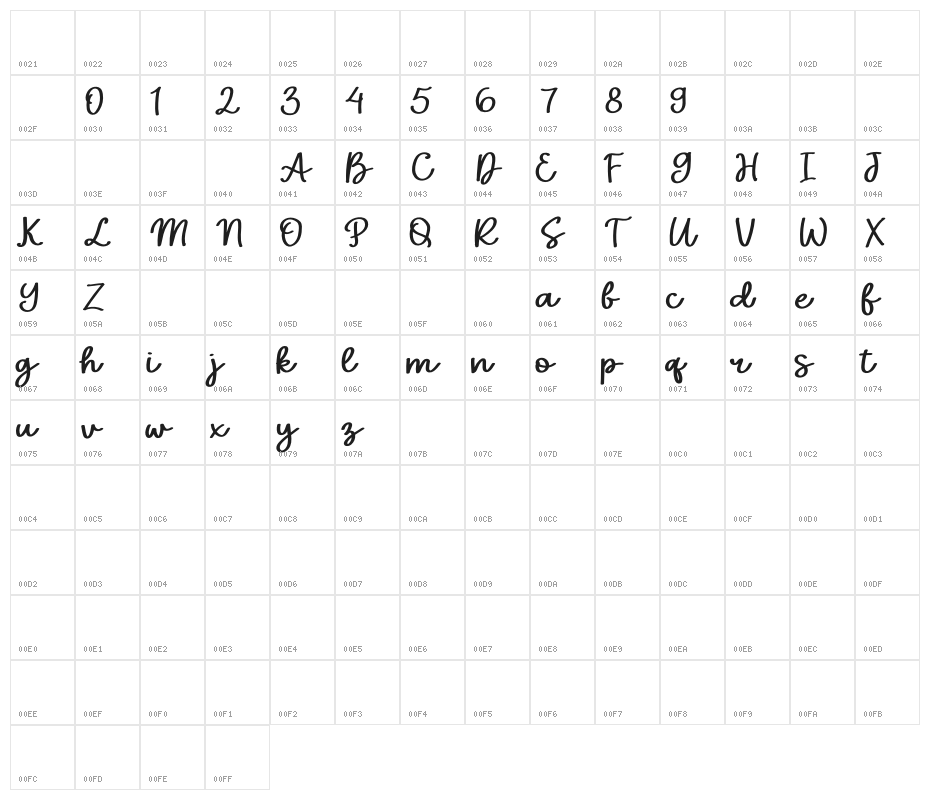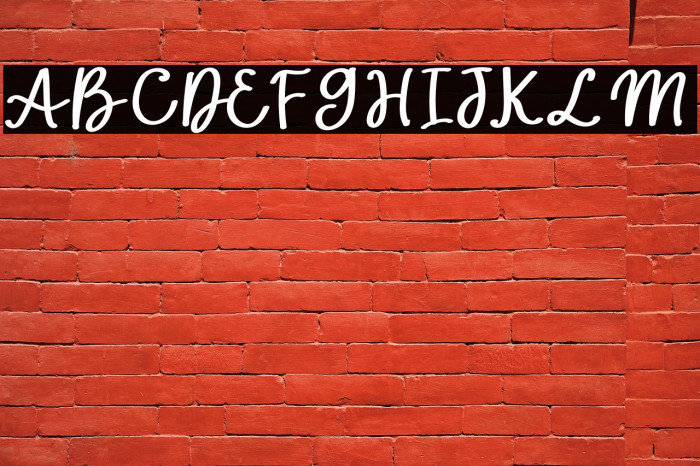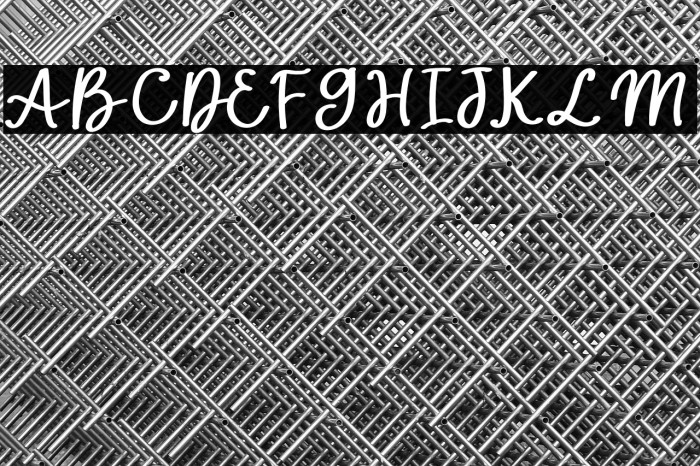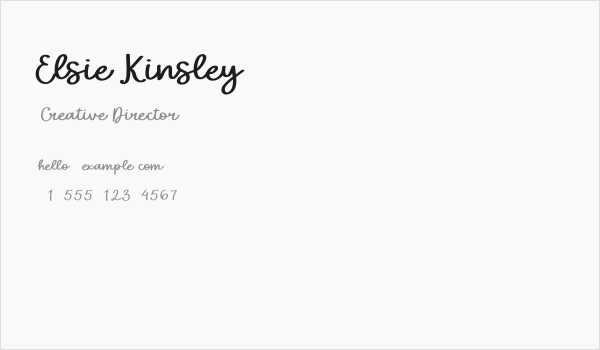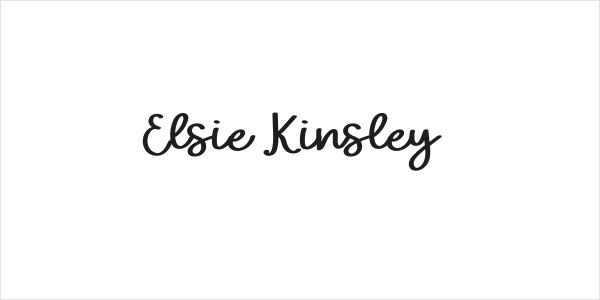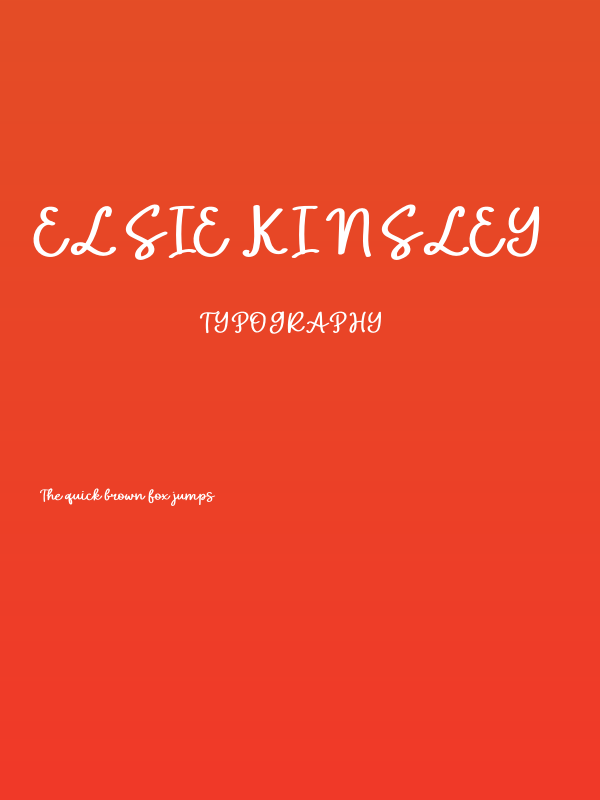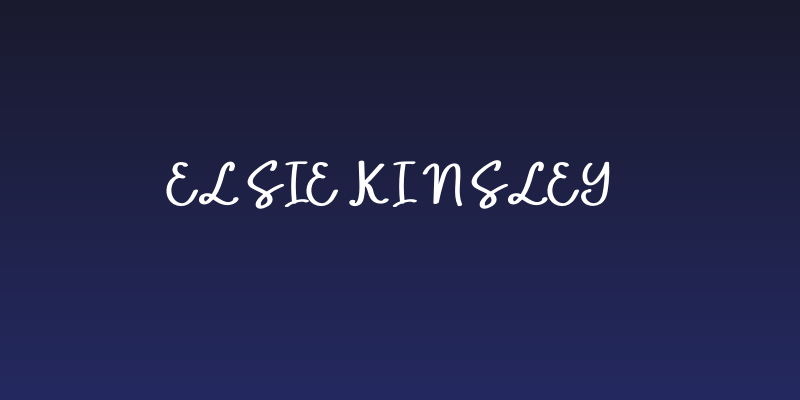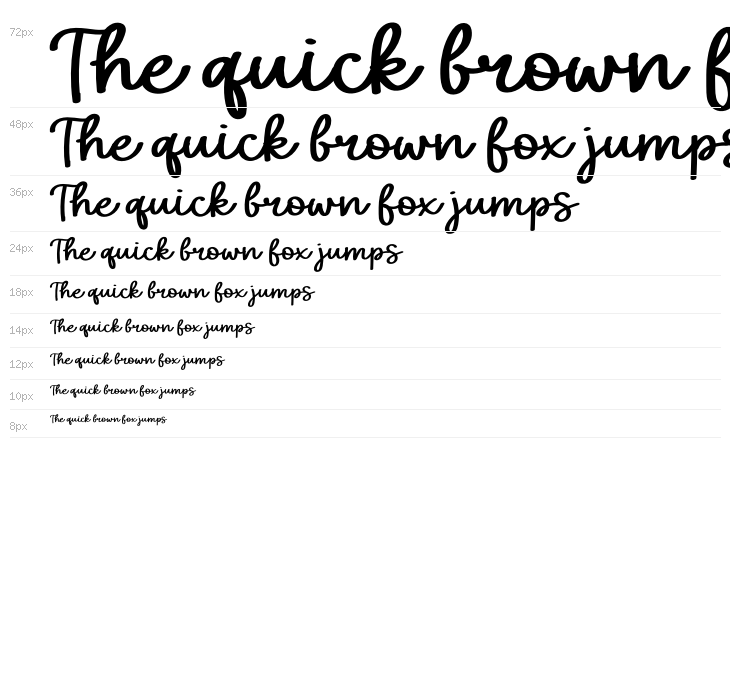
Elsie Kinsley Font
Elsie Kinsley Description
This font features a charming and fluid script style, characterized by its smooth, flowing lines and elegant curves. The uppercase letters exhibit a graceful, slightly slanted form, while the lowercase letters maintain a consistent, connected flow, enhancing the script's cohesive appearance. The numerals are designed with a similar fluidity, ensuring uniformity across all characters. This font's playful yet sophisticated style makes it versatile for various design applications.
| Use Case | Logos, Invitations, Social Media |
| Proposed Projects | Ideal for wedding invitations, greeting cards, branding, and social media graphics. |